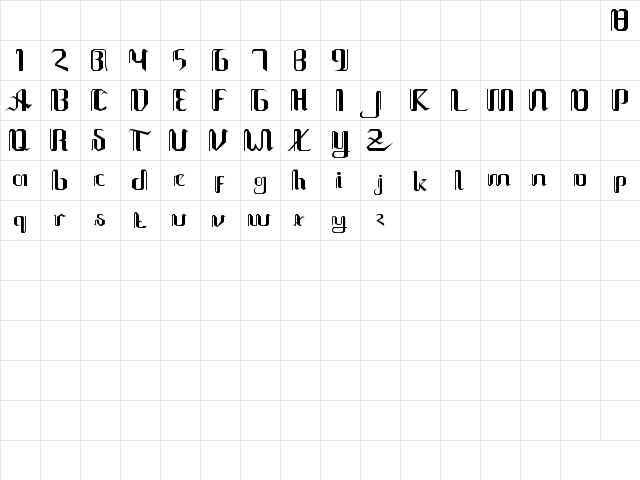
jawa palsu Regular
Design Context for jawa palsu Typeface
jawa palsu is a composed and adaptable typeface that performs quietly and consistently across a wide range of design contexts.